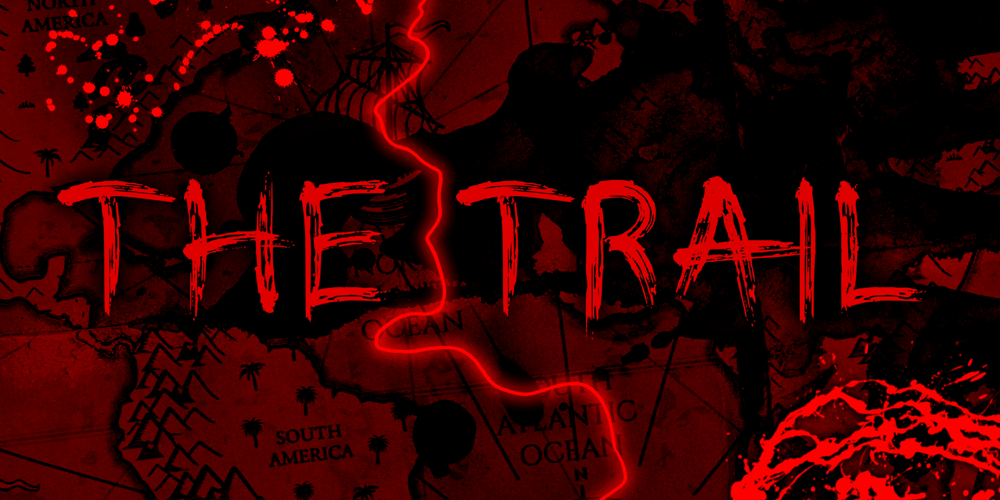
The Trail
The Trail font
The Trail Font Family was designed by Ioanna Ladopoulou and published by Joanna Vu. The Trail contains 1 styles and family package options. “The Trail” is a hand-drawn, organic font, designed to resemble paint strokes. As a highly decorative, unique font, it’s ideal for titles, headlines, logos, etc and it is guaranteed to make an impact.Due to its dark nature, it’s particularly suitable for your dark and scary projects. If you wish to stand out, “The Trail” is your best choice. Supports most latin-derived languages.